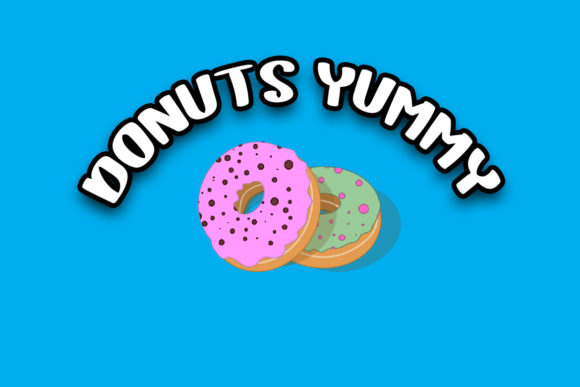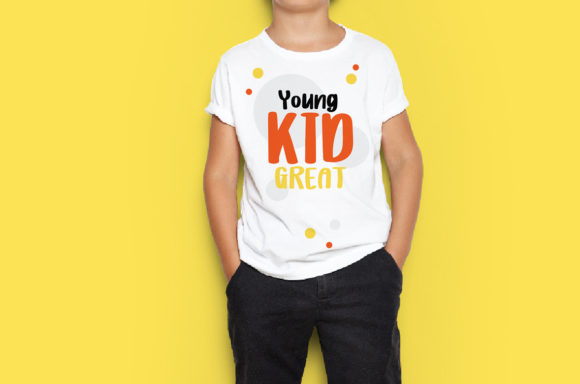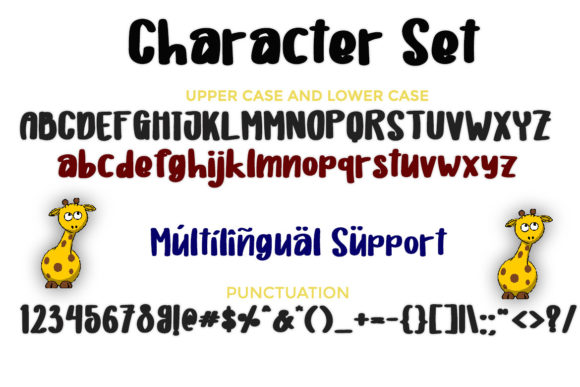
Introducing Adoki Home Font: The Perfect Hand-Drawn Display Font for Creative Projects
Are you a designer, crafter, or DIY enthusiast looking for a unique and playful font to add a personal touch to your projects? Look no further than Adoki Home Font! This hand-drawn display font is not only adorable but also versatile, making it perfect for a wide range of creative endeavors. In this article, we’ll dive into the features and benefits of Adoki Home Font, and explore how you can use it to bring your projects to life.
What is Adoki Home Font?
Adoki Home Font is a carefully crafted, hand-drawn display font that exudes a sense of fun and playfulness. Its unique, whimsical design makes it an excellent choice for projects that require a personal and creative touch. Whether you’re working on a school project, creating handmade cards, or designing crafts for kids, Adoki Home Font is sure to add a delightful touch.
Key Features of Adoki Home Font
- Hand-drawn with love: Adoki Home Font is meticulously crafted by hand, giving it a distinct, organic feel that sets it apart from generic fonts.
- Cute and playful: The font’s playful design makes it perfect for projects aimed at children or those that require a lighthearted touch.
- Versatile: Adoki Home Font can be used for a wide range of projects, from digital designs to handmade crafts.
- Easy to read: Despite its playful nature, Adoki Home Font remains clear and easy to read, making it suitable for both headlines and body text.
Use Cases for Adoki Home Font
Adoki Home Font’s versatility makes it suitable for various projects, including:
- School projects: Add a fun and creative touch to school assignments, presentations, and posters.
- Children’s crafts: Use Adoki Home Font to create engaging and interactive crafts for kids, such as handmade cards, stickers, and coloring pages.
- Digital designs: Incorporate Adoki Home Font into your digital designs, such as social media graphics, blog headers, and email newsletters.
- DIY projects: Add a personal touch to your DIY projects, such as handmade signs, labels, and decorations.
Tips for Using Adoki Home Font
To get the most out of Adoki Home Font, here are some tips to keep in mind:
- Pair with complementary fonts: Combine Adoki Home Font with other fonts to create visual interest and hierarchy.
- Experiment with colors: Adoki Home Font looks great in a variety of colors, so don’t be afraid to try out different hues and combinations.
- Use it sparingly: While Adoki Home Font is cute and playful, it’s best used in moderation to avoid overwhelming the design.
| Font Name | Adoki Home Font |
| Author | khafalab |
Adoki Home Font is a delightful, hand-drawn display font that’s perfect for designers, crafters, and DIY enthusiasts looking to add a personal touch to their projects. With its playful design, versatility, and ease of use, Adoki Home Font is sure to become a favorite in your font collection. So why not give it a try and see how it can bring your projects to life?
Whether you’re a seasoned designer or a crafting newbie, Adoki Home Font is an excellent choice for anyone looking to add a touch of whimsy and fun to their creations. So go ahead, get creative, and have fun with Adoki Home Font!